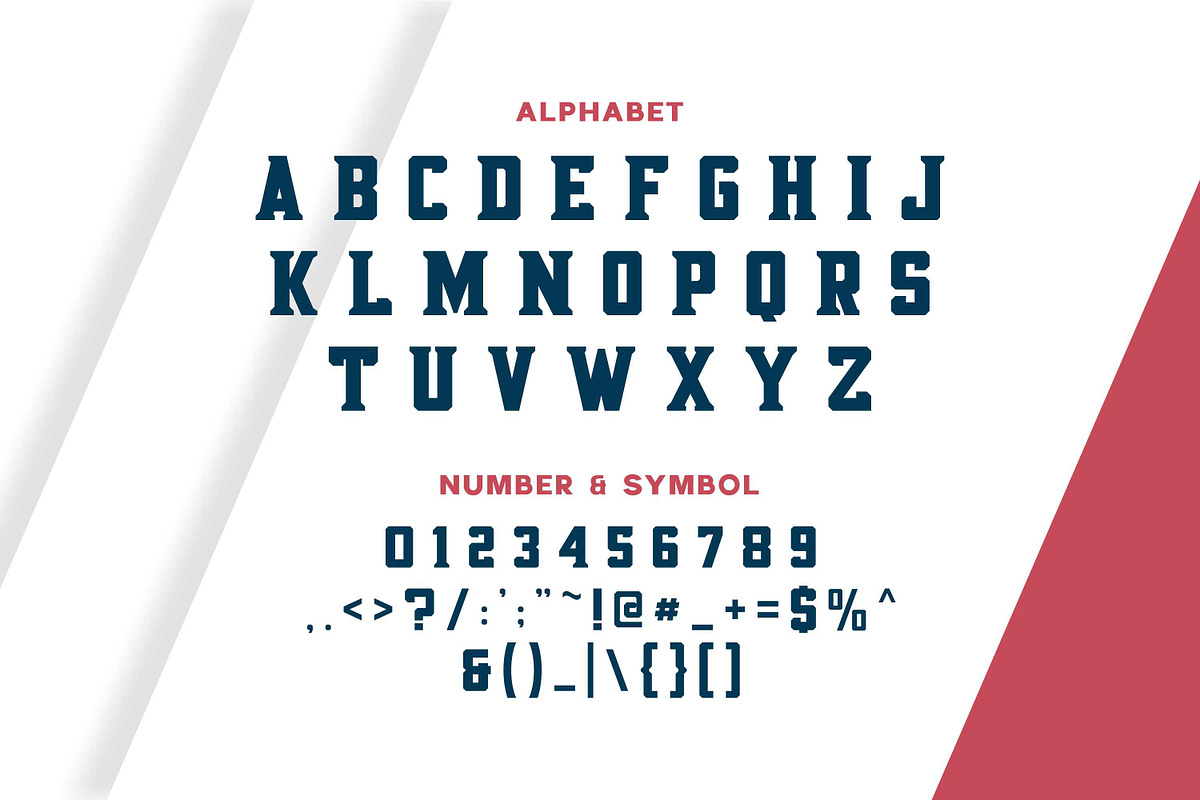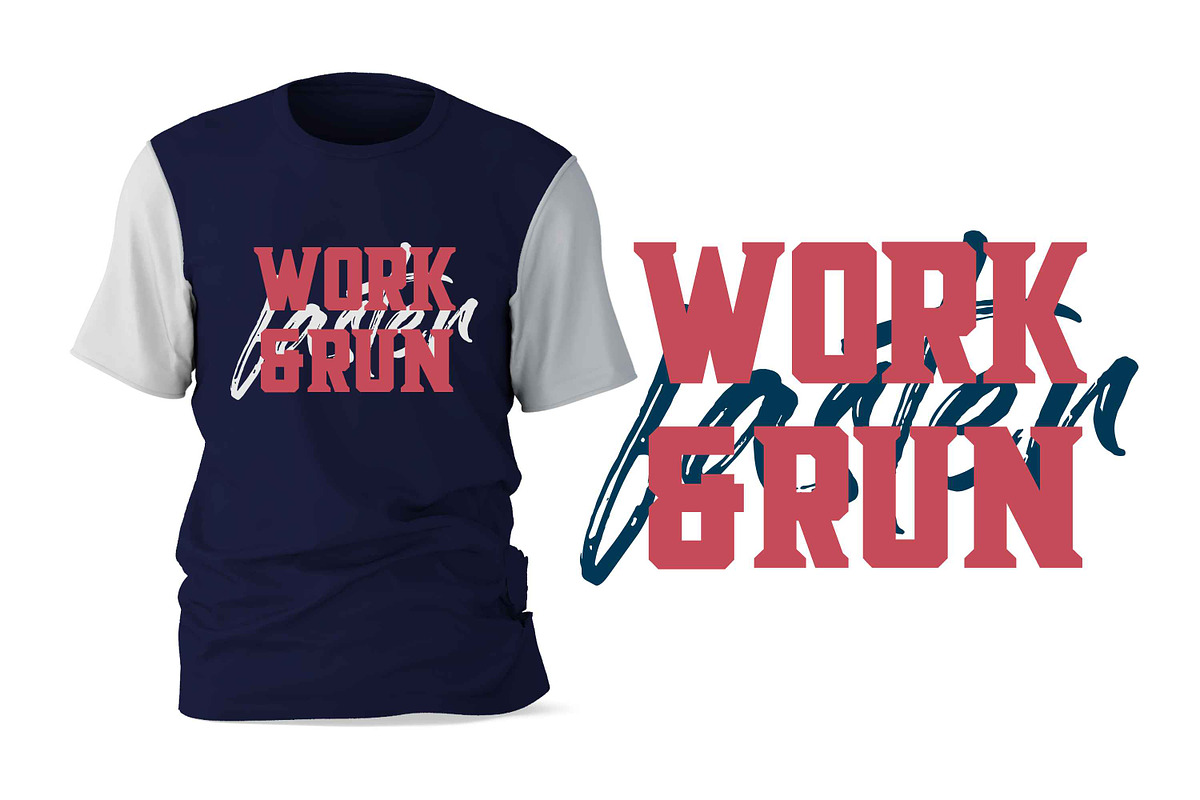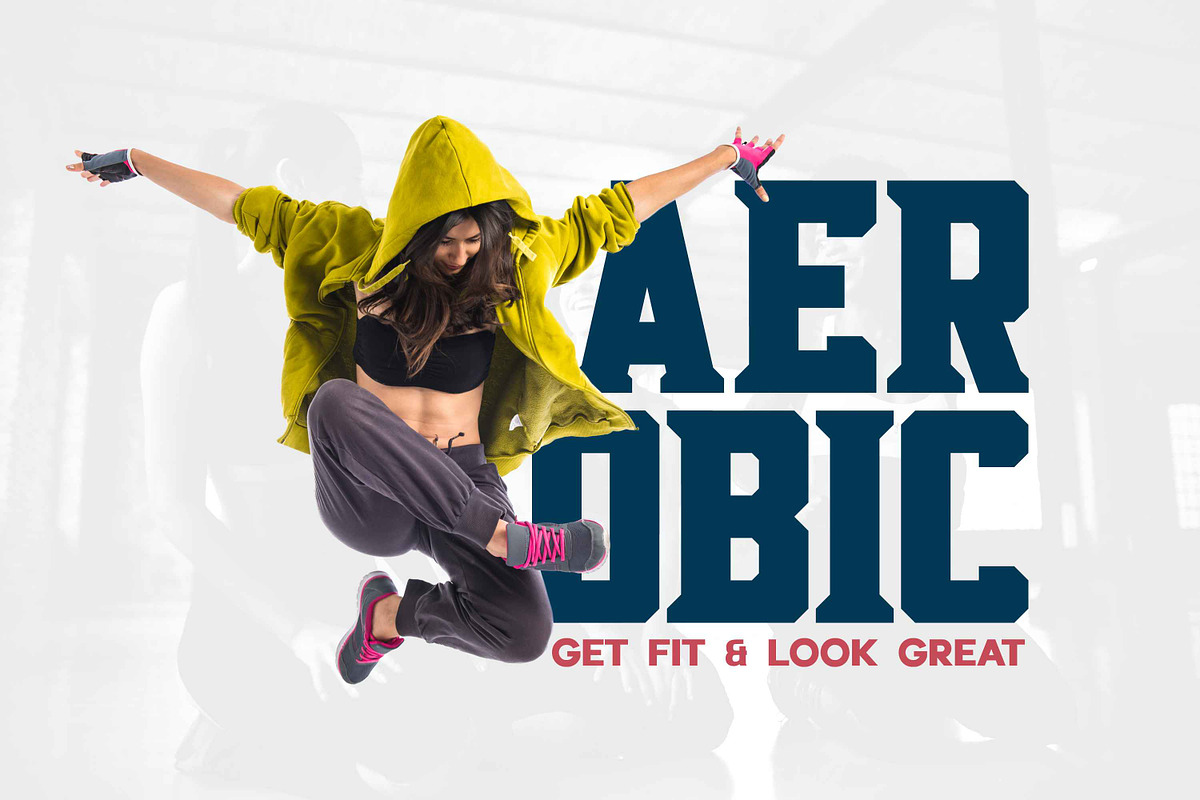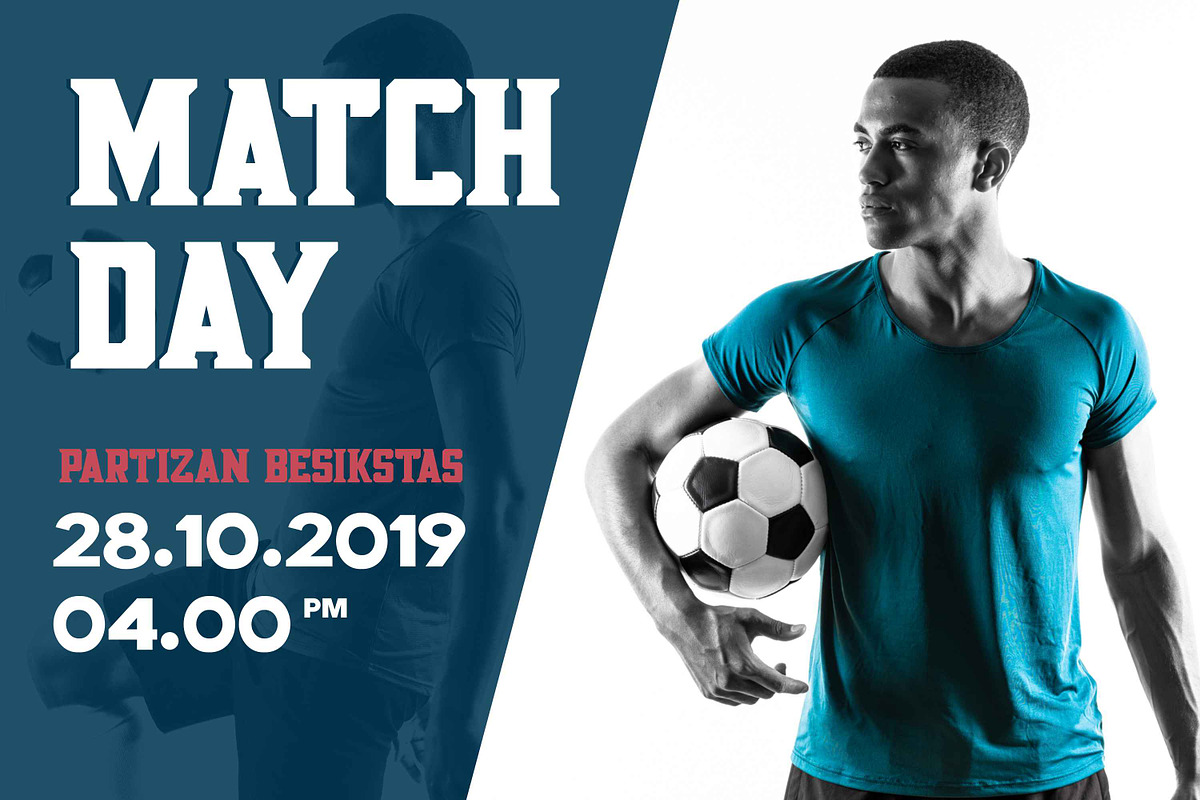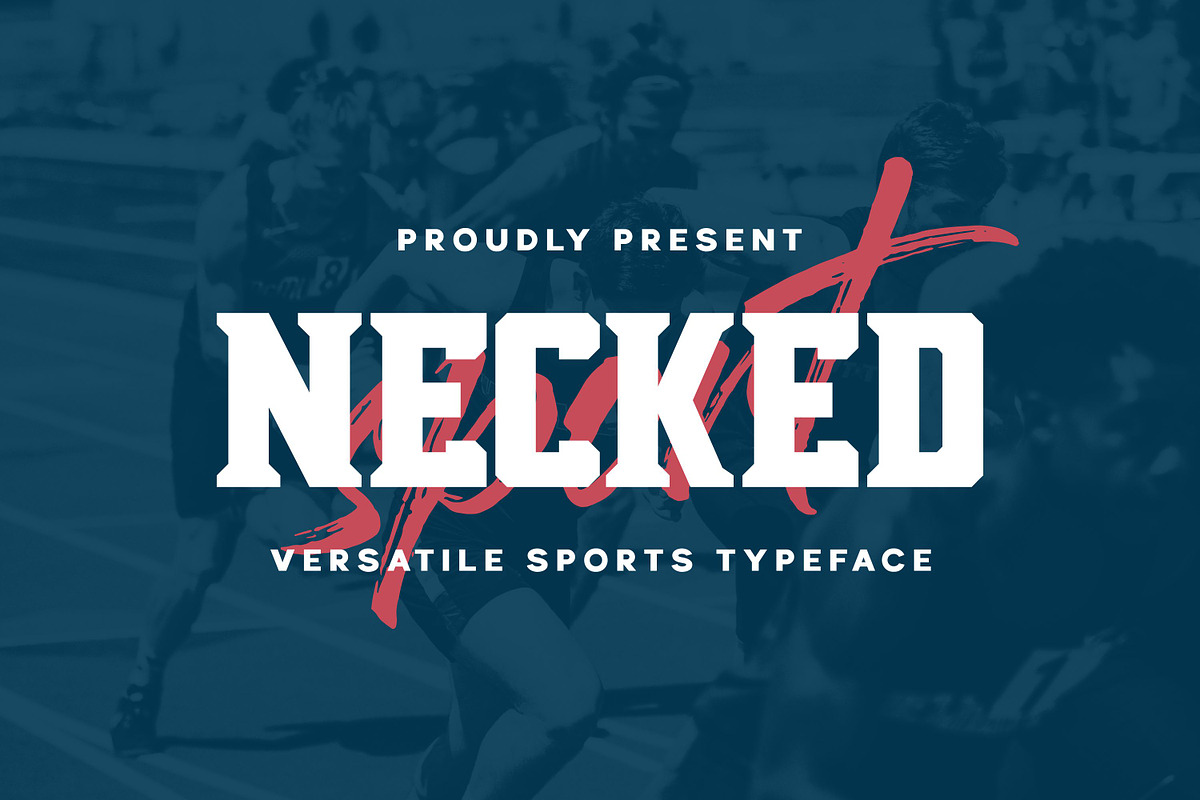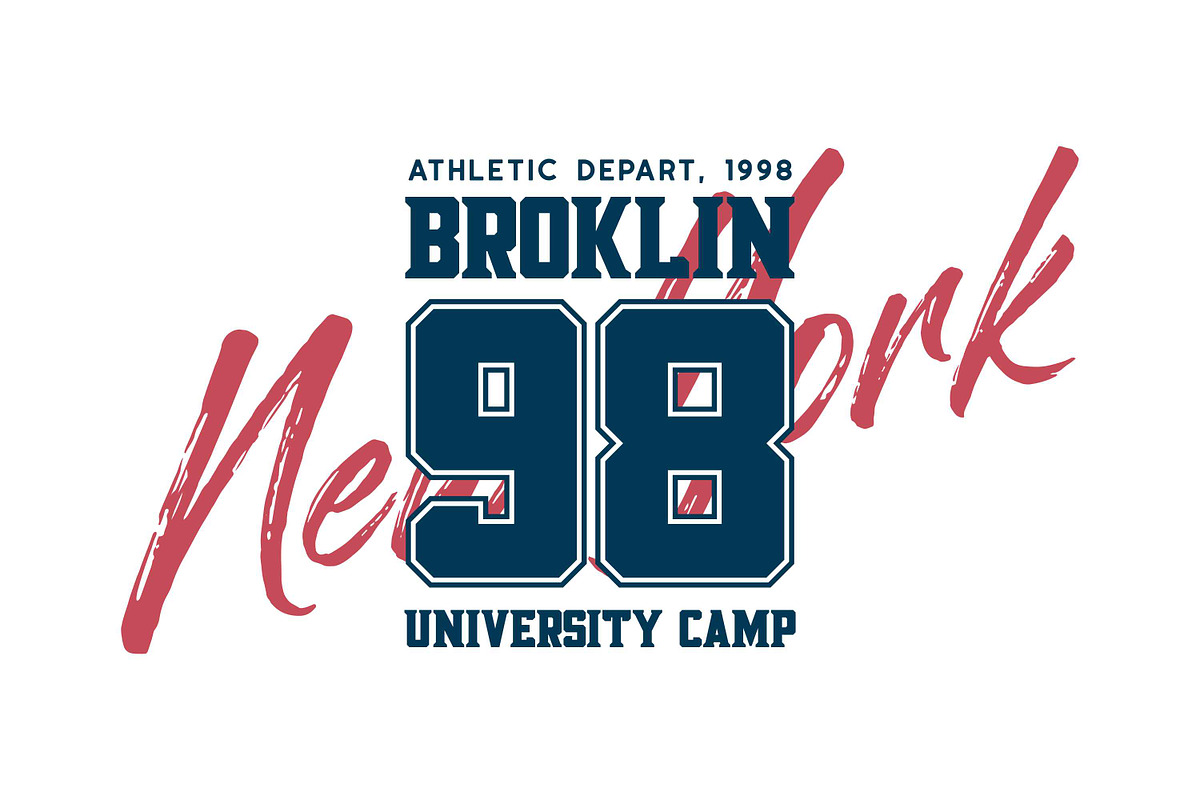
Necked - Versatile Sport Typeface
Necked is versatile sports themed display font. Necked font designed to work well at medium to large size. Necked fonts are also suitable for apparel design projects, jerseys, sports posters, colleges, sport content and many more.